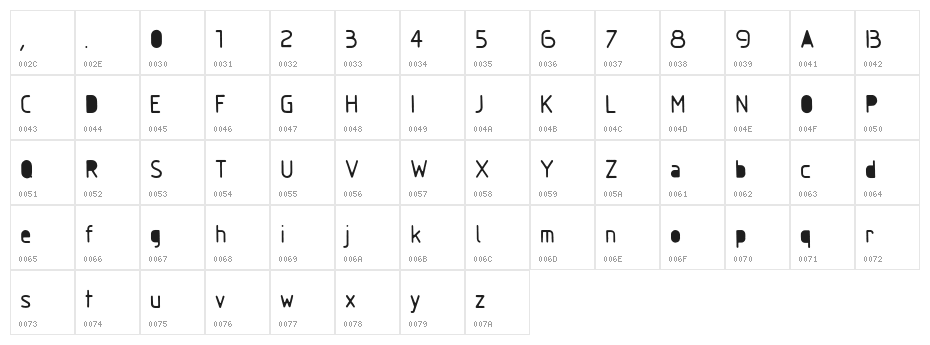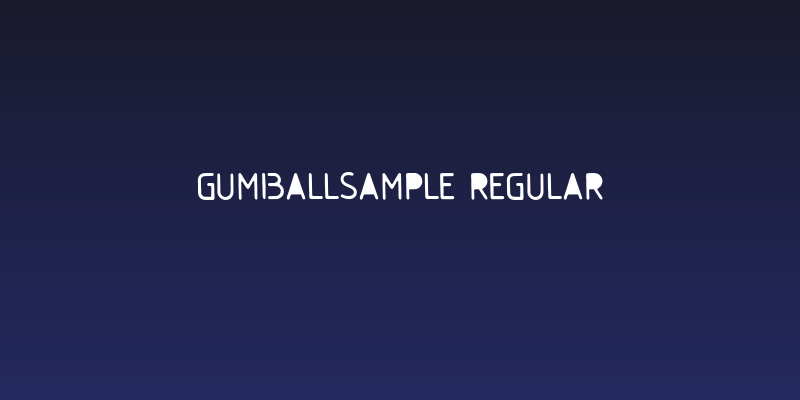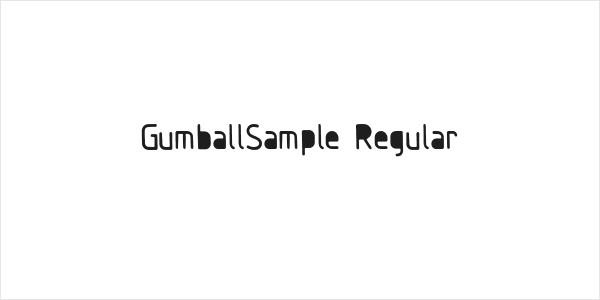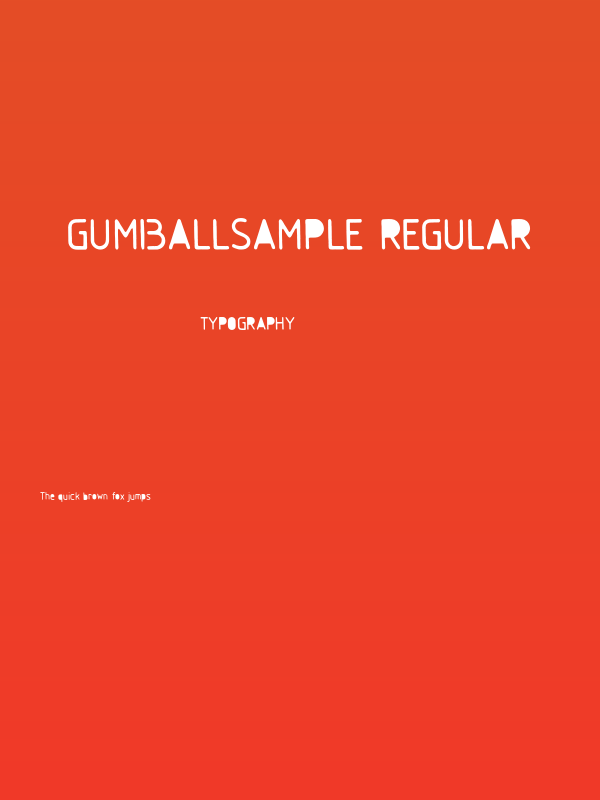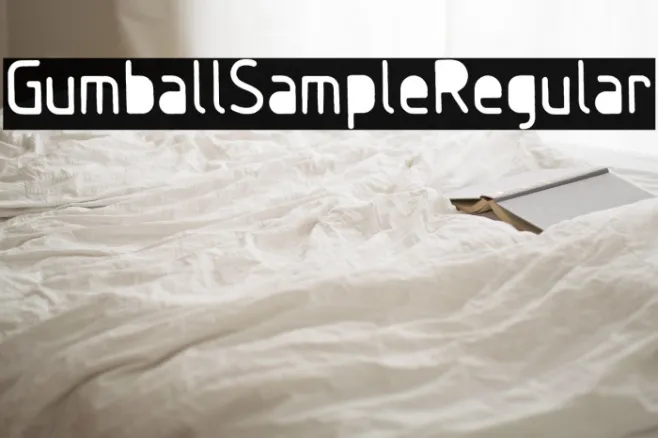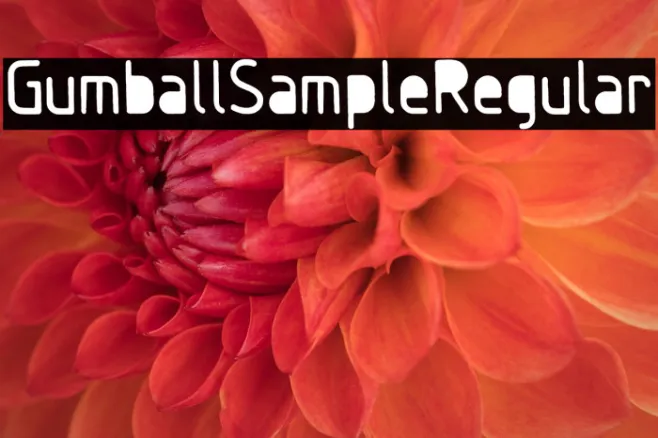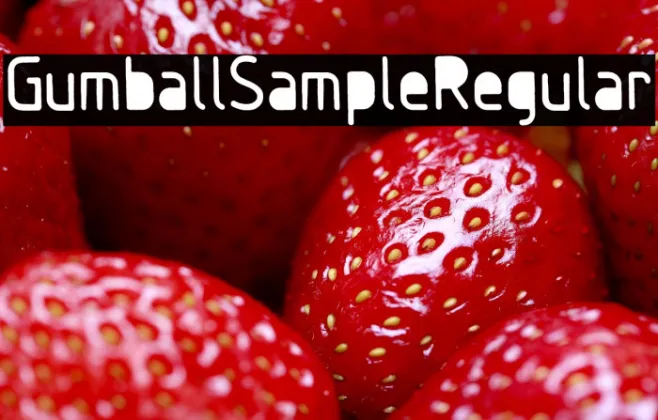
GumballSample-Regular Font
GumballSample-Regular Description
This font features a playful and rounded design, characterized by its bold and slightly irregular strokes. The letters have a whimsical quality, with a mix of thick and thin lines that give it a hand-drawn appearance. The uppercase characters are bold and prominent, while the lowercase letters maintain a consistent style with a slightly narrower form. The numbers are clear and easy to read, matching the playful aesthetic of the alphabet. The special characters are simple yet effective, fitting seamlessly into the overall design. This font's unique style makes it suitable for projects that require a fun and approachable look.